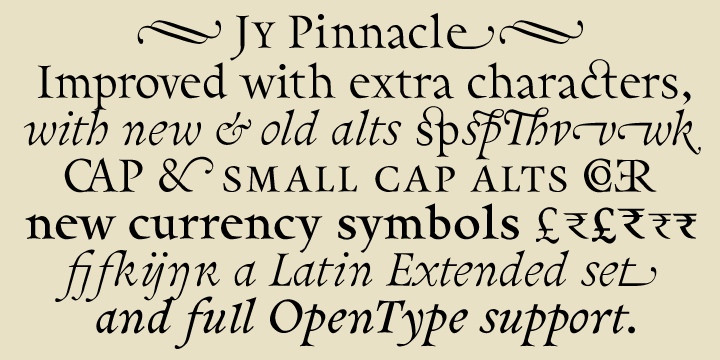
Pinnacle JY Pro Font is perfect for Fortune 500 corporate branding, executive business presentations, professional financial reports, luxury consulting firm logos, high-end legal documents, prestigious award ceremonies, summit conference materials, leadership coaching branding, premium investment portfolios, and elite business communications.
What makes Pinnacle JY Pro Font so exciting is its exceptional ability to embody the highest levels of professional achievement and corporate excellence through letterforms that seem to radiate authority, success, and unwavering confidence. This distinguished typeface represents the apex of business typography, featuring characters that command respect and communicate peak performance across all professional environments. The font's authoritative design elements perfectly balance corporate gravitas with contemporary sophistication, creating an indispensable tool that communicates market leadership, executive presence, and professional supremacy, making it essential for organizations and individuals operating at the pinnacle of their respective industries.
Pinnacle JY Pro Font comes in multiple font families including Regular, Bold, Light, Italic, Bold Italic, Executive, Corporate, and Summit variations. Each family member maintains the core leadership characteristics while offering different authority levels and stylistic approaches to suit various professional design requirements.
The executive precision in Pinnacle JY Pro Font makes it particularly effective for Fortune 500 companies and professional services firms where conveying market leadership and corporate authority is essential for maintaining competitive advantage. Its commanding letterforms work exceptionally well across all business applications, from boardroom presentations to global corporate communications, maintaining consistent professional impact at every touchpoint.
Corporate communication professionals recognize how Pinnacle JY Pro Font transforms ordinary business documents into powerful declarations of market leadership and executive excellence. The typeface's professional character set includes comprehensive business symbols, financial notation, and international language support that accommodates complex corporate requirements and global business applications.
For creative professionals serving multinational corporations, executive leadership, and premium professional services, Pinnacle JY Pro Font serves as the ultimate foundation for establishing memorable visual identities that capture the essential qualities of corporate excellence, market leadership, and professional achievement that define successful organizations at the pinnacle of global business success.